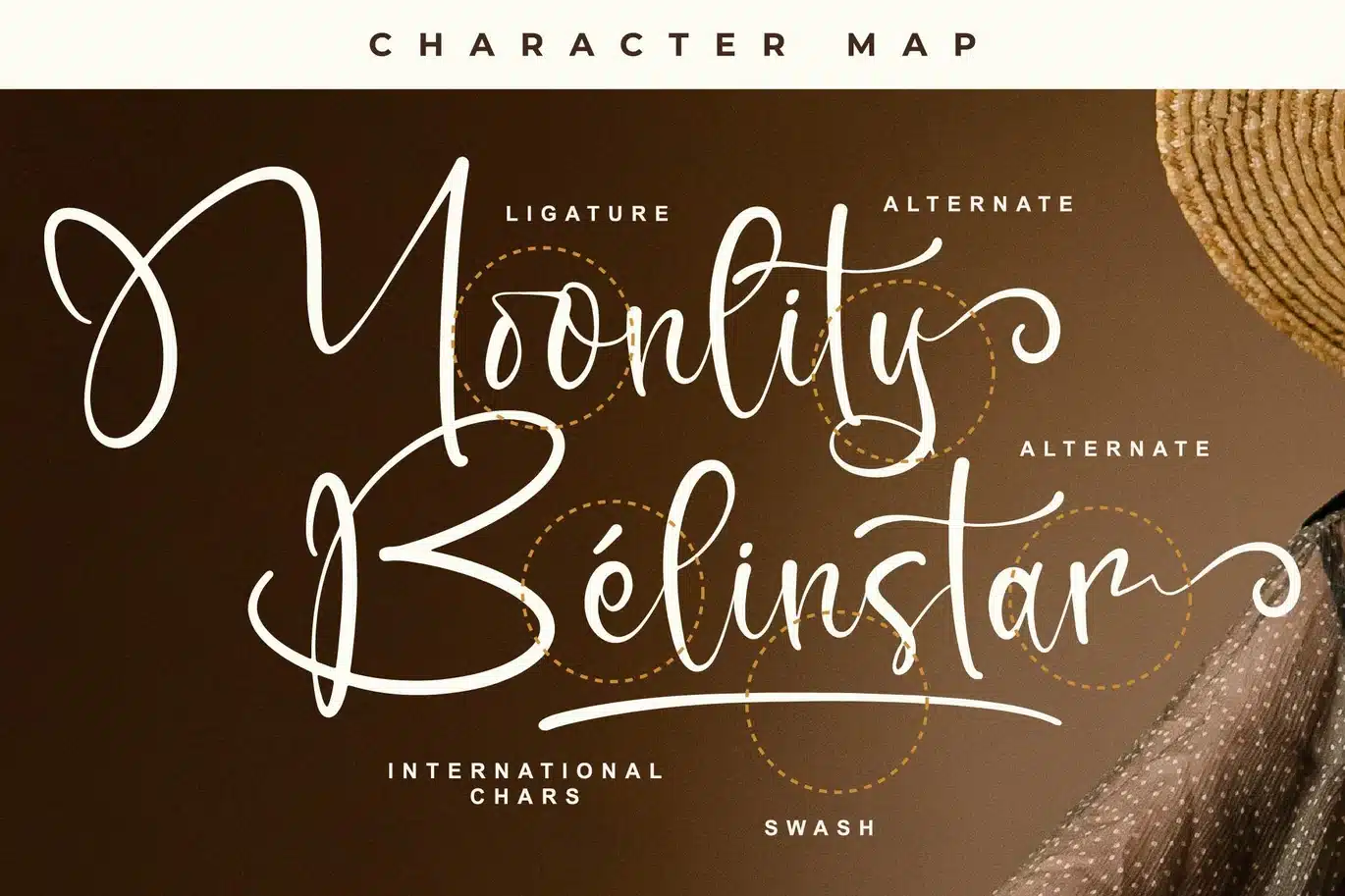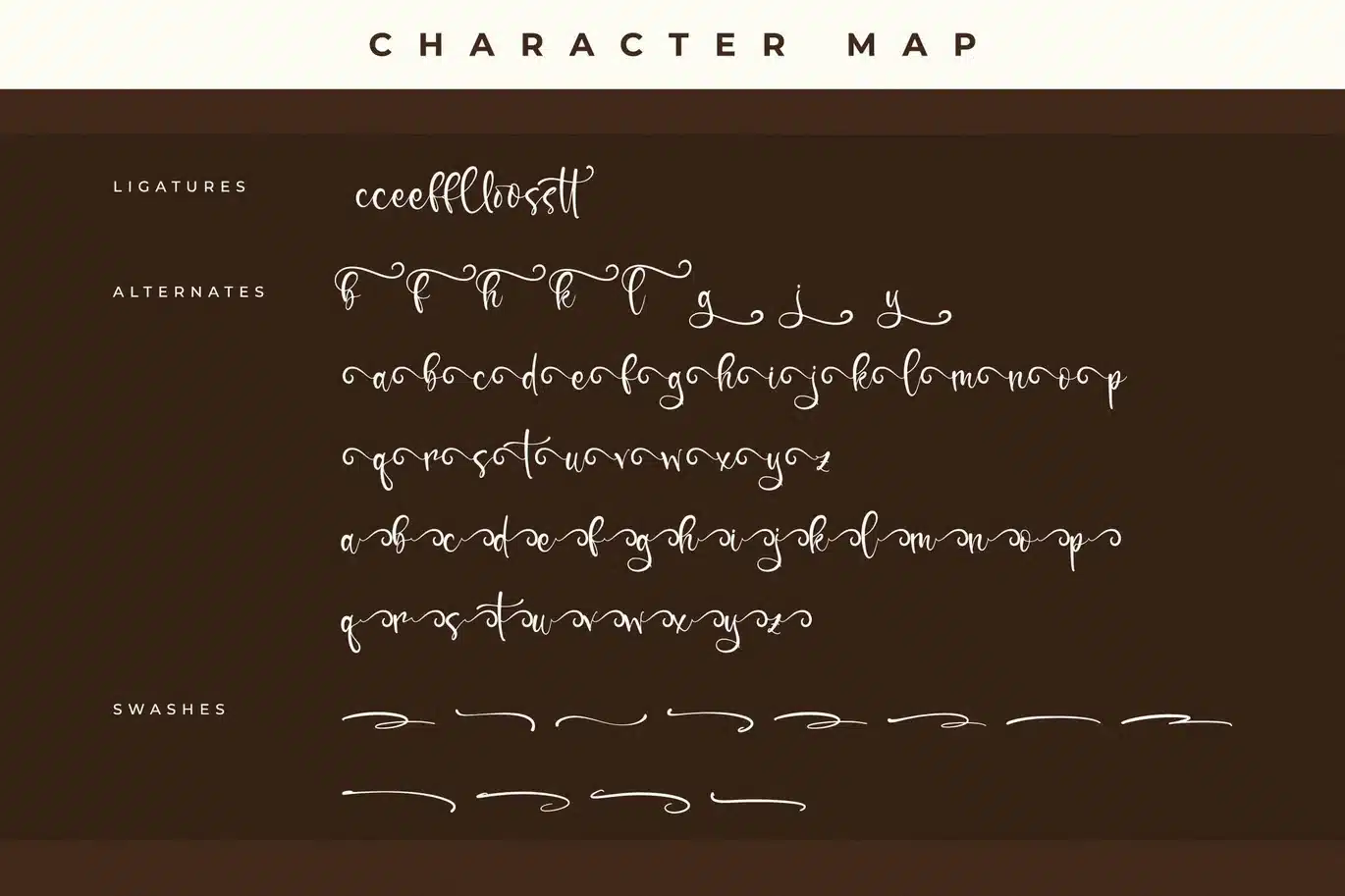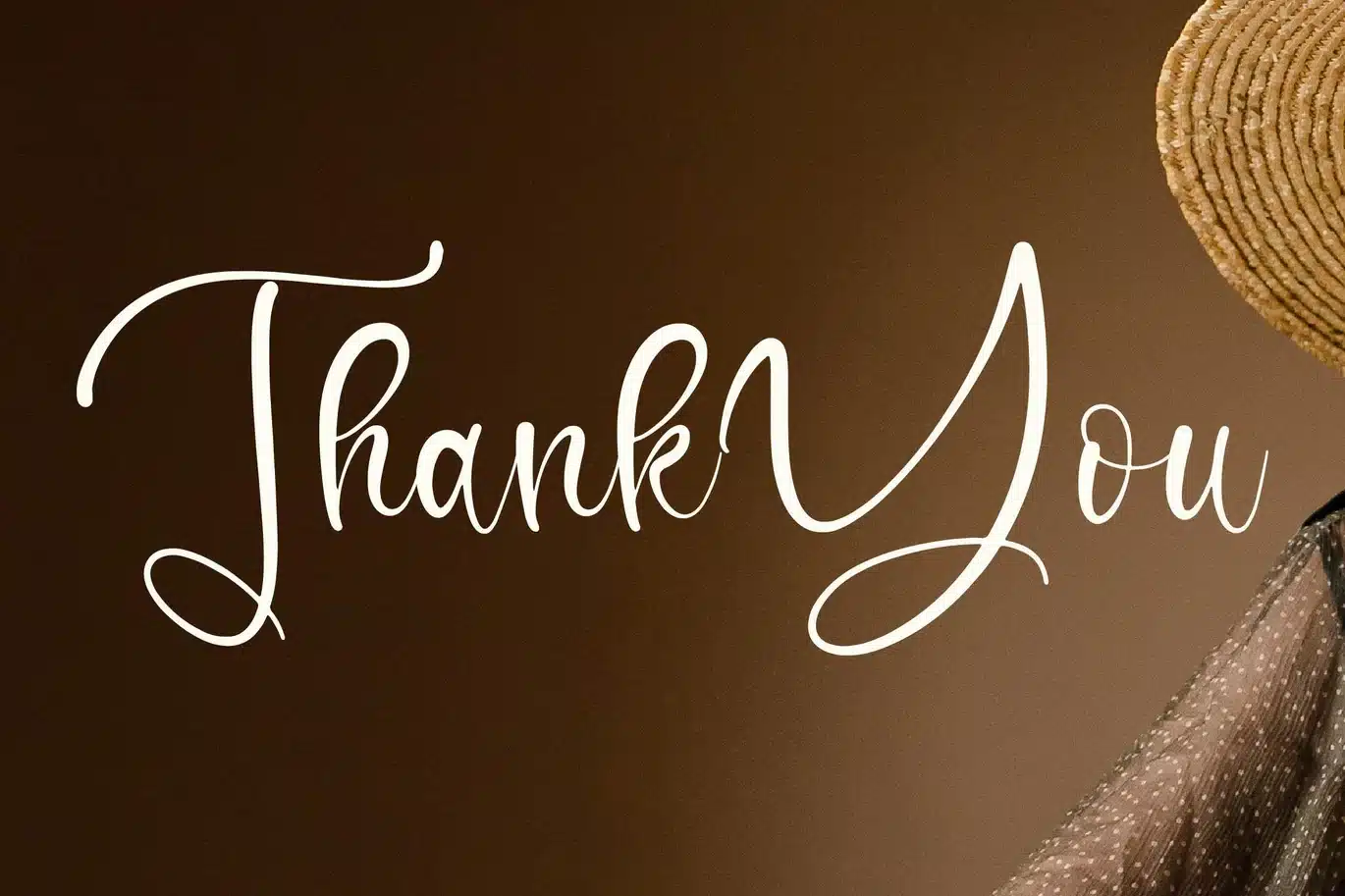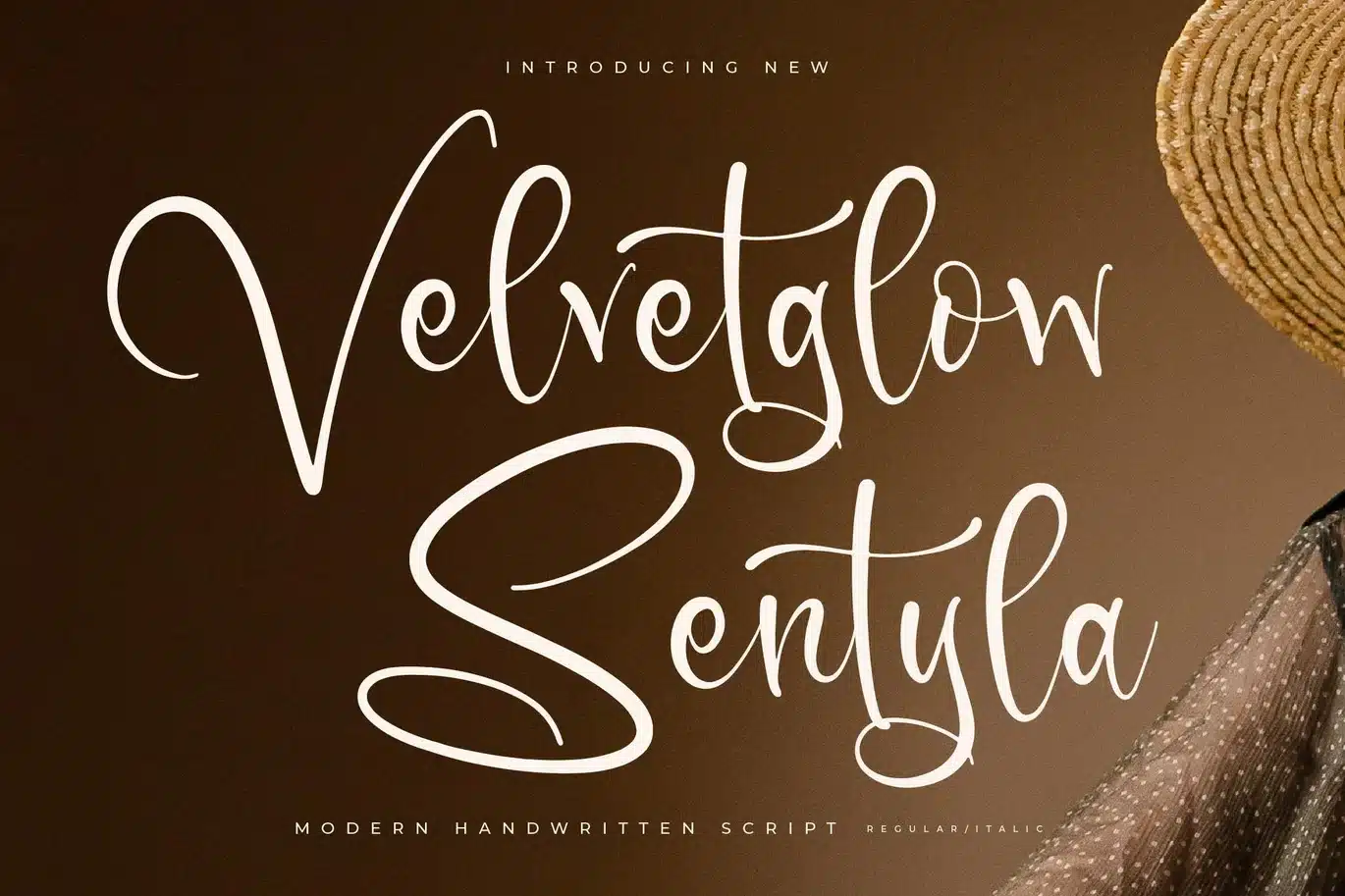
Velvetglow Sentyla Modern Handwritten Script Font
Hi ladies & gentlemen, this is one of our fonts suitable to complement your digital and printed creative products. This font is perfect for posters, social media posts, branding, personal projects, etc.